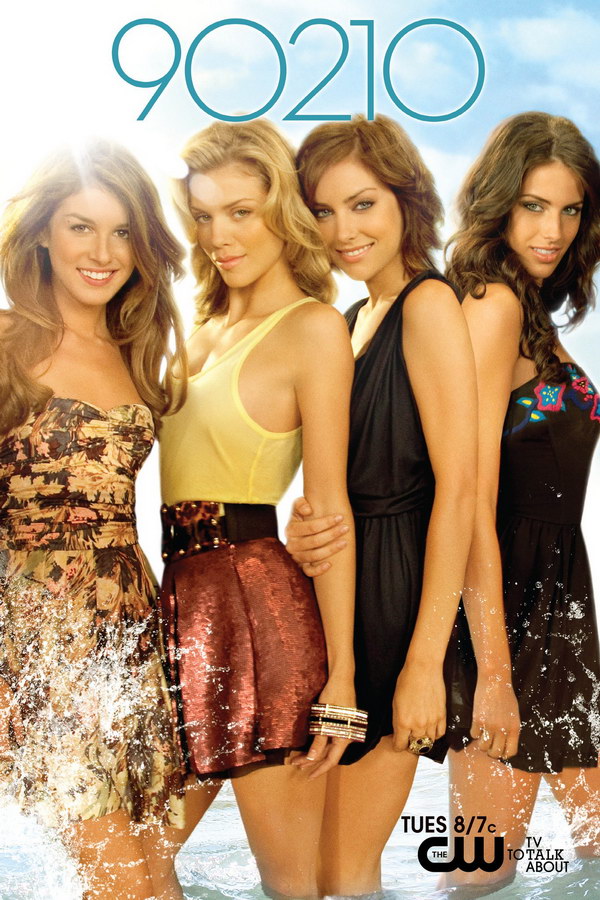
90210 Font
Fonts in Use90210 is a teen drama series that aired from 2008-2013. It is a spin-off of the popular 90s series "Beverly Hills, 90210" and follows the lives of a group of teenagers living in the wealthy community of Beverly Hills.
The intertitle of the first season features a highly geometric lettering that resembles a commercial font known as Futura SH-XLight. More information about the typeface is available here.